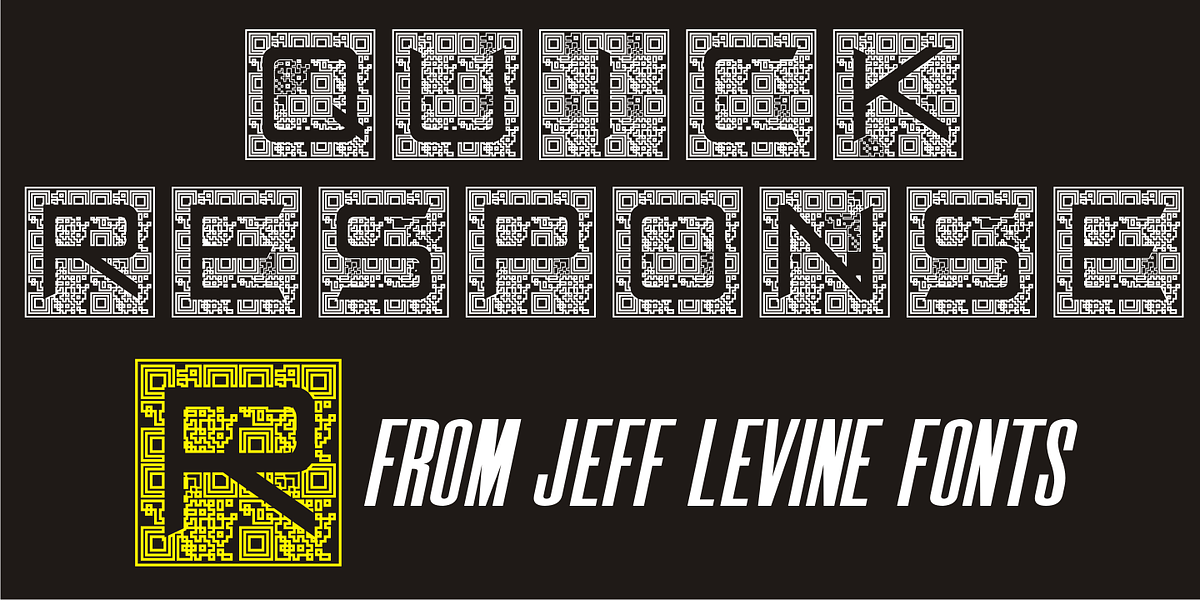
Quick Response JNL
Quick Response JNL is a technology-inspired set of novelty letters (A to Z only) emulating the digital ‘quick response codes’ used for storing data retrievable by today’s smart phones.